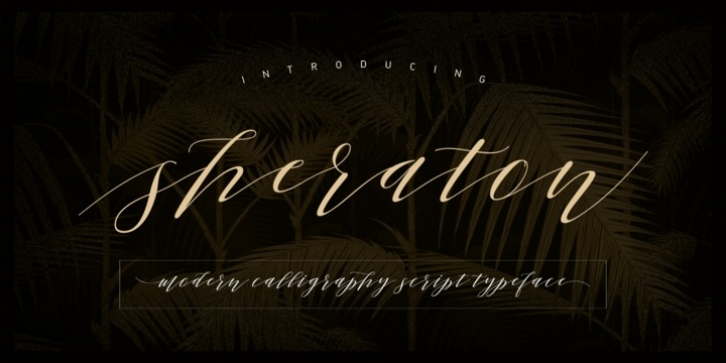
Sheraton Script is a lovely, modern calligraphic script. It features dynamic and pretty swashes and can be used for many purpose, such as titles, signatures, logos, wedding invitations, letterhead, signage, labels, newsletters, posters, badges, etc.
Sheraton Script features Open type, including the initial and terminal letters, ligatures and International support for most Western languages ​​included.